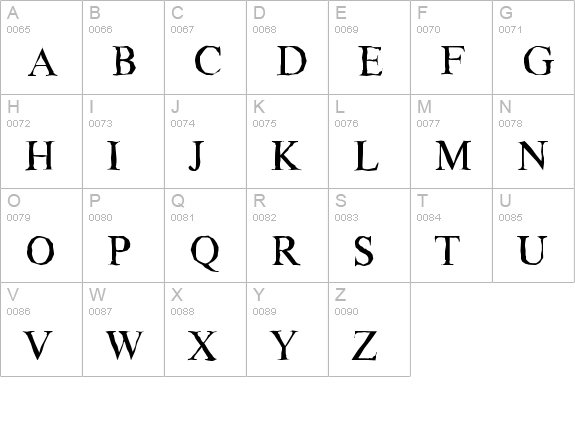
ThamesAntique-Regular Font Details
ThamesAntique-Regular is the standard, neutral variant in the ThamesAntique typeface family \xE2\x80\x94 well suited to general body text, paragraphs, and standard typographic work.
ThamesAntique-Regular is a timeless and elegant font that exudes sophistication and charm. Its classic serifs and graceful curves make it perfect for adding a touch of refinement to any project. This versatile font is ideal for a wide range of design applications, from invitations and logos to branding and packaging. What makes ThamesAntique-Regular even more appealing is that it is available for free download at FontsMarket.com. This means that you can easily access this beautiful font and use it in your projects without any cost. So why wait? Add ThamesAntique-Regular to your font collection today and elevate your designs with its timeless beauty.